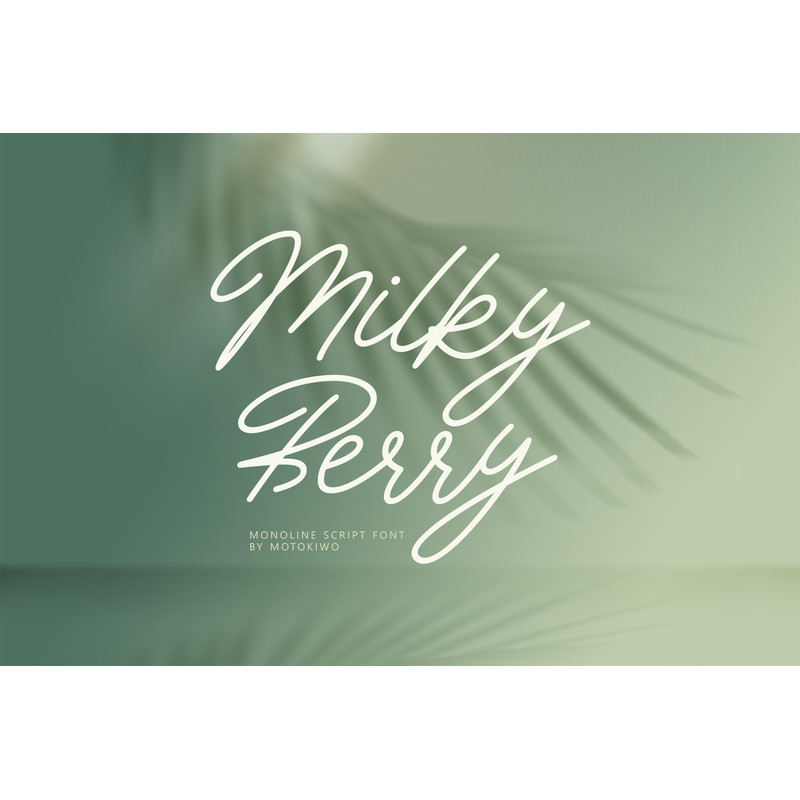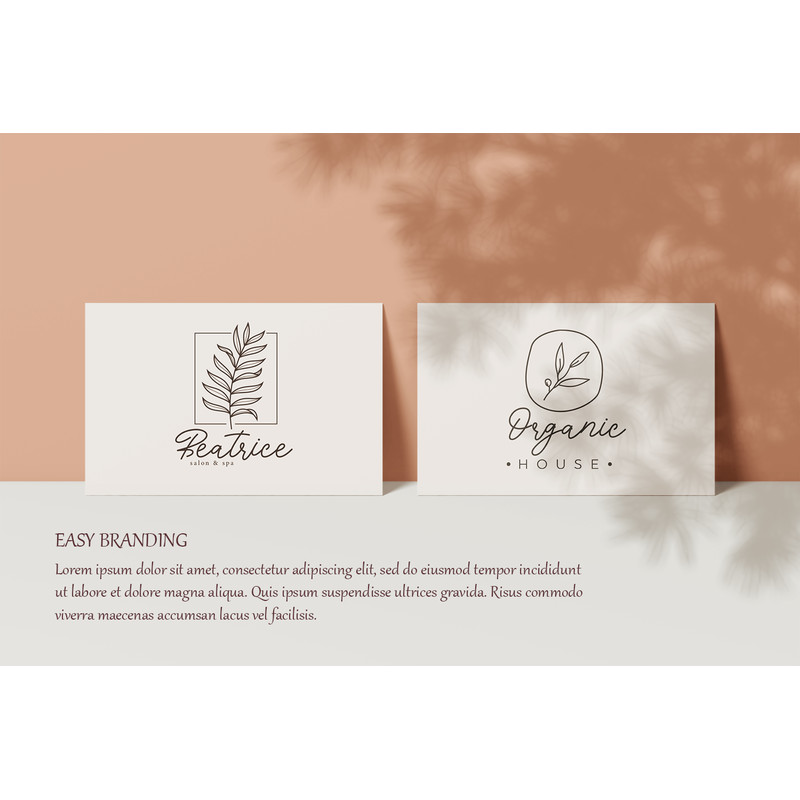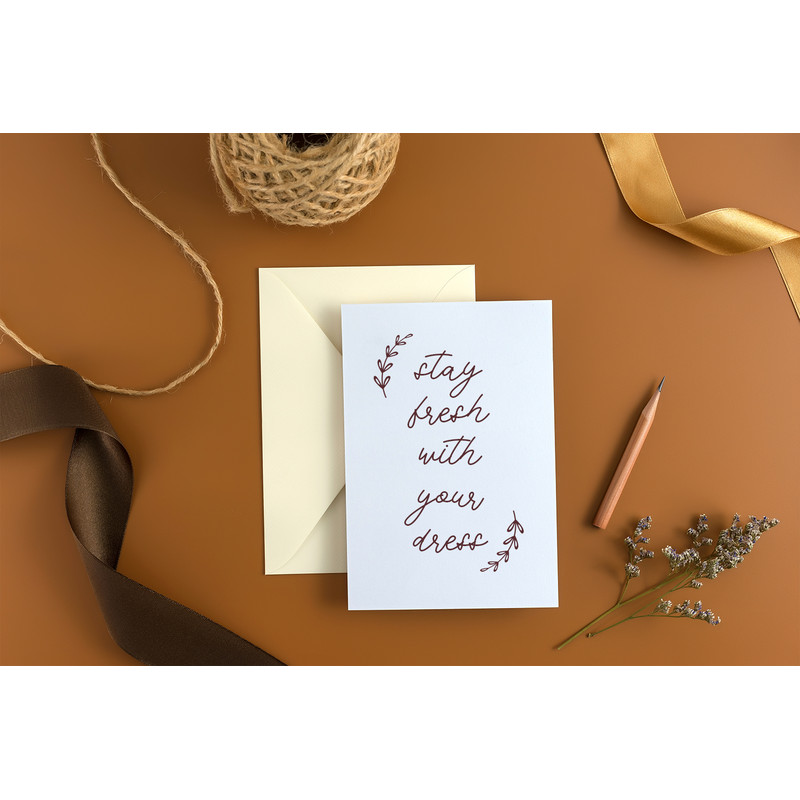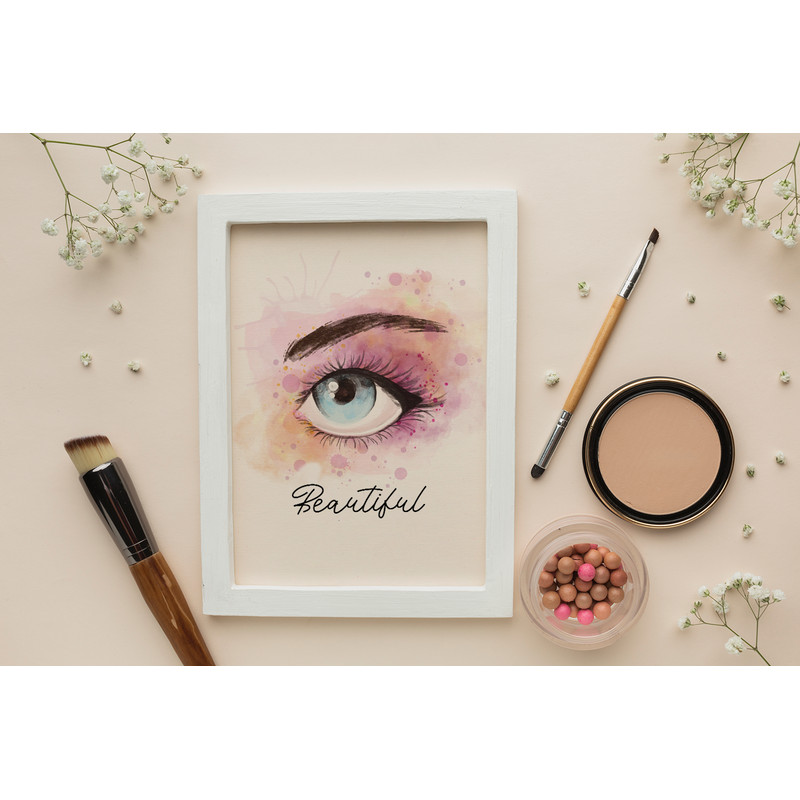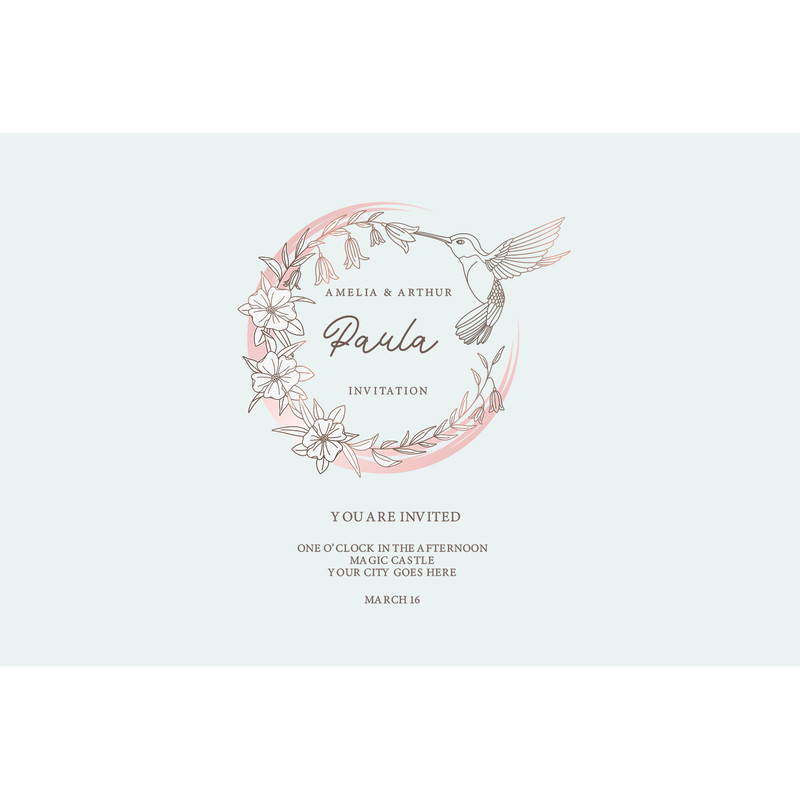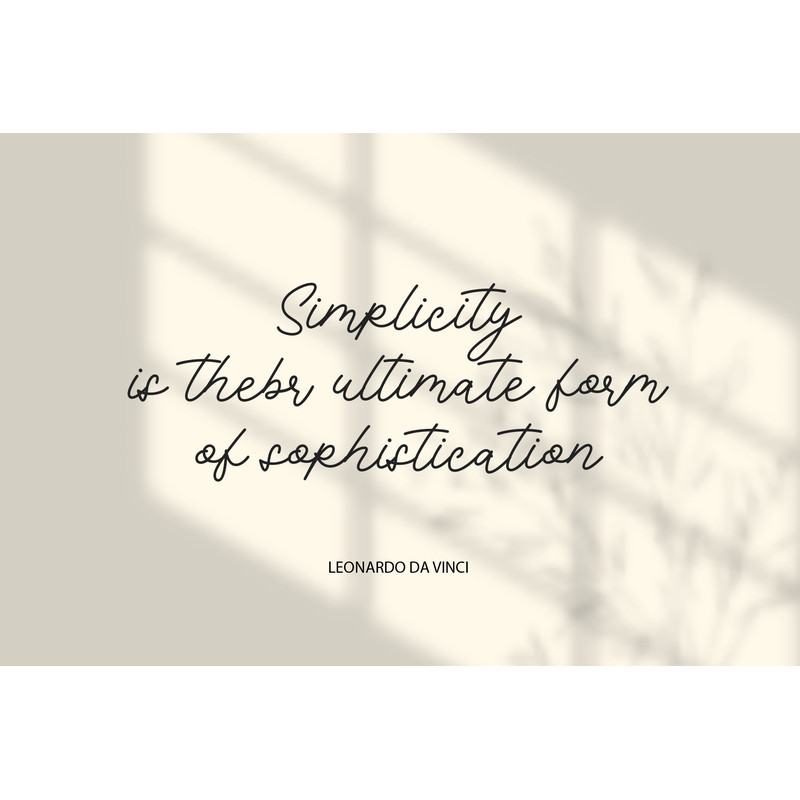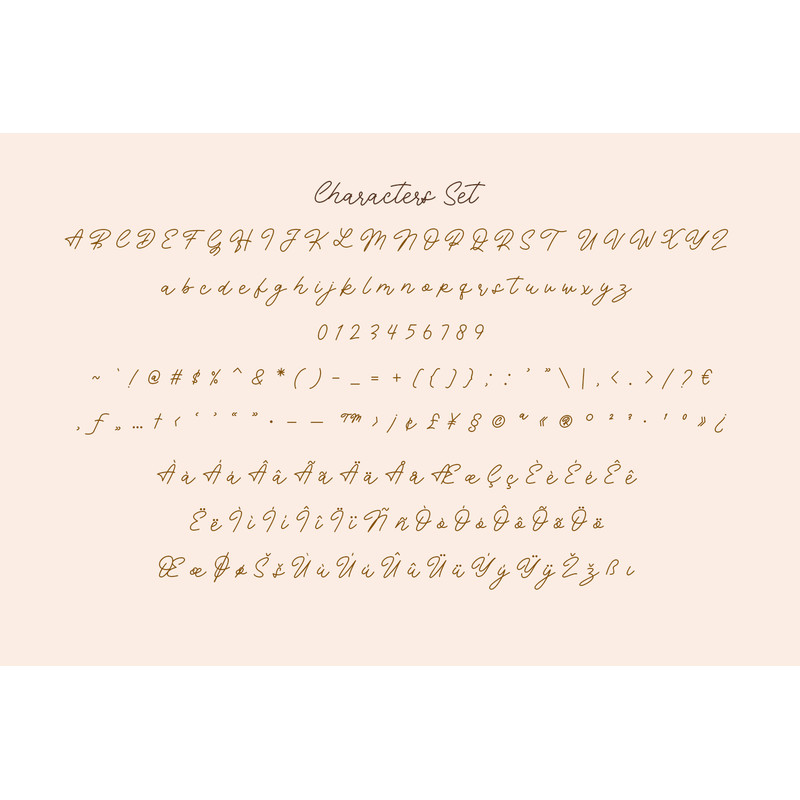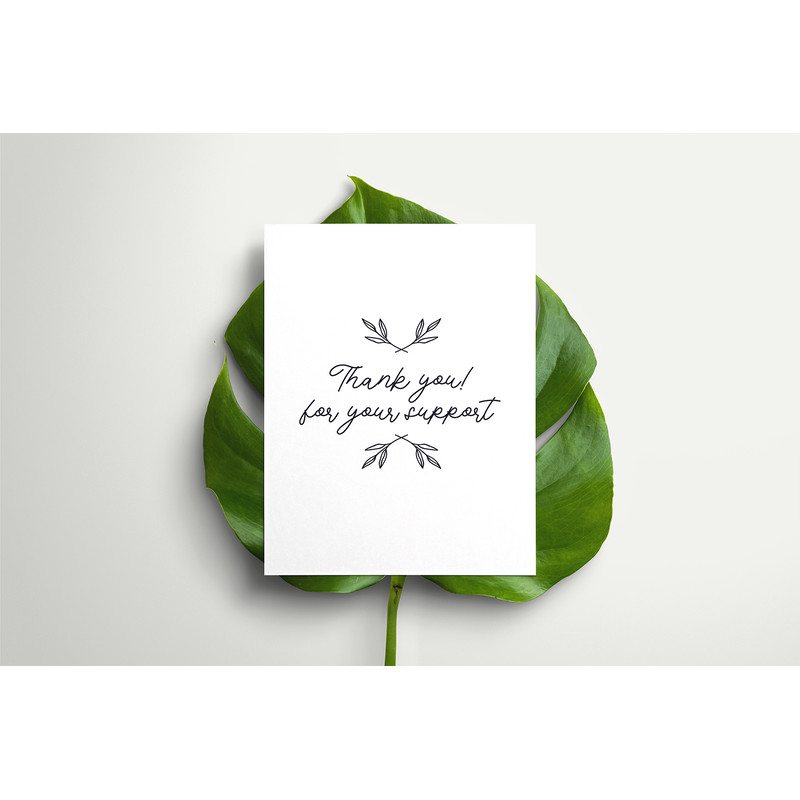
This casual script designed to handle modern and minimalist projects. Say hello to Milky Berry, a monoline script font with feminine organic character style that very suitable for a chic logo brand, cosmetic projects, wedding, quotes, and many more.
FEATURES:
Uppercase & lowercase
Numeral & Punctuation
Ligature
Multilingual Support